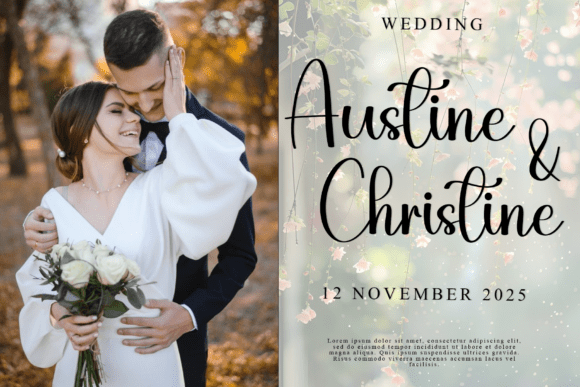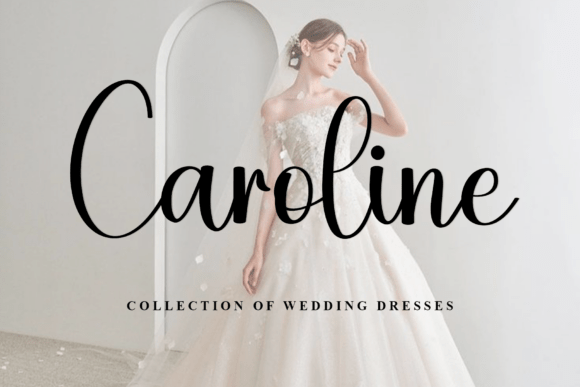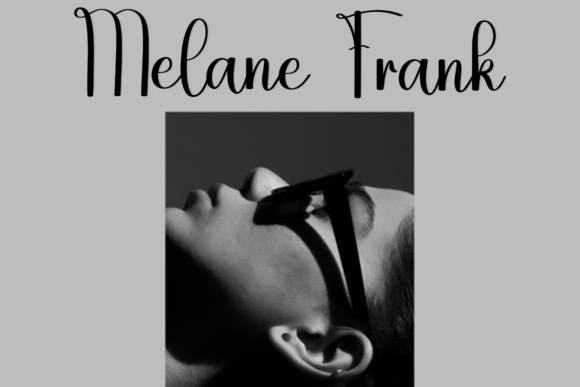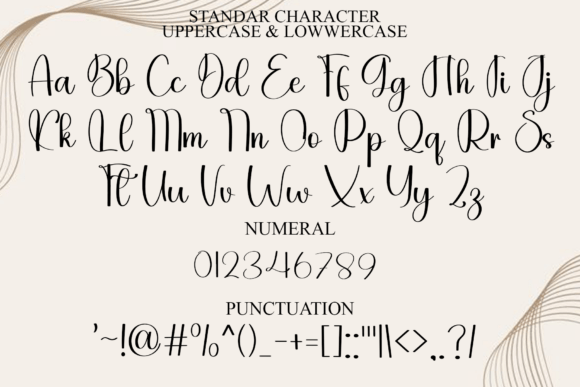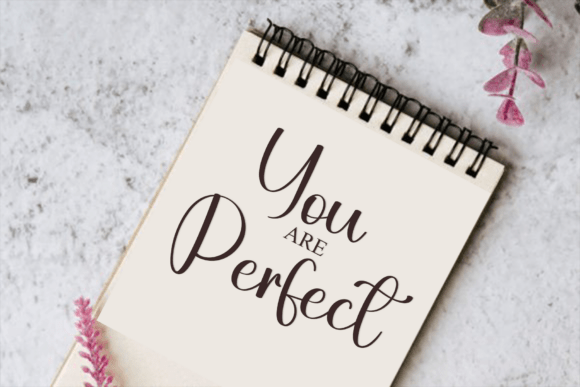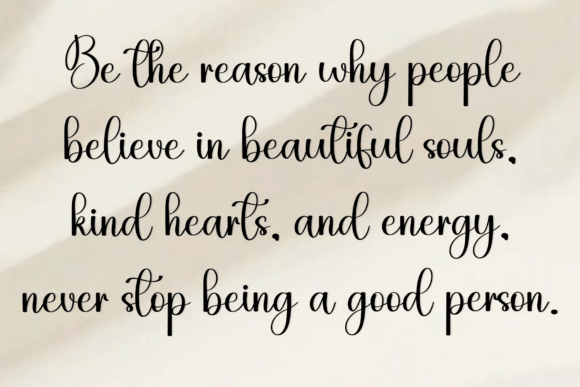
Unleashing the Magic of Artistic Script Font
As a creative, have you ever stumbled upon that perfect font that brings your design to life? Perhaps it was the subtle flair of a handwritten script or the elegance of a classic serif. For me, it’s always been about capturing the essence of a moment, and that’s exactly what the Artistic Script Font does. With its soft, unique touch, it adds a special character to any design, making it truly memorable.
The Artistic Script Font is more than just a pretty face – it’s a versatile tool designed to enhance your designs and captivate your audience. Whether you’re working on a graphic novel, a wedding invitation, or a brand identity, this font is sure to bring your creative vision to life. Its compatibility with various applications, including Windows and open-source platforms, makes it a valuable addition to any designer’s toolkit.
Key Features of Artistic Script Font
- Unique Characteristics: Elegant, cursive script with swashes and flourishes, ideal for creative and artistic designs
Artistic Script Font Review
Overall, I’d say the Artistic Script Font is a beautiful addition to any design project. It’s perfect for adding a touch of elegance and sophistication to your work. ✨ The font is highly customizable, with a wide range of styles and sizes to choose from. It’s also very versatile, and can be used in a variety of contexts, from invitations and posters to business cards and websites.
- ✨ Beautiful, elegant design
- ✨ Highly customizable
- ✨ Versatile and can be used in a variety of contexts
- ✨ Wide range of styles and sizes to choose from
However, I do have a few reservations about the font. ⚠️ Firstly, it can be a bit difficult to read in smaller sizes, especially when used for large blocks of text. This is something to keep in mind when using the font for body text. Additionally, the font can look a bit too ornate in certain situations, which may not be suitable for all design projects.
- ⚠️ Difficult to read in smaller sizes
- ⚠️ May look too ornate in certain situations
Overall, I’d say the Artistic Script Font is a great choice for designers who want to add a touch of elegance and sophistication to their work. With its high level of customization and versatility, it’s a great font to have in your toolkit. However, be sure to use it wisely, and take into account its limitations when choosing the right size and style for your project.
Use Artistic Script Font for:
- Party and event invitations
- Personalized gifts and cards
Remember to experiment with different font sizes, colors, and styles to get the most out of Artistic Script Font.
Alternatives to Artistic Script Font
Playfair Display is a high-end script font that features elegant, luxurious flair. It’s ideal for use in high-end branding, advertising, and editorial design where a touch of sophistication is required. Compared to Artistic Script Font, Playfair Display has a more refined and classical feel, making it suitable for a wider range of applications.
Lobster is a fun, casual script font that’s perfect for use in informal design projects, such as social media, blog posts, and posters. While it lacks the elegance of Artistic Script Font, Lobster’s playful nature makes it ideal for conveying a relaxed, approachable tone. Its simplicity also makes it easier to read at smaller font sizes.
Great Vibes is a modern script font that exudes a sense of friendliness and approachability. It’s suitable for use in branding, advertising, and web design projects where a friendly, conversational tone is required. Compared to Artistic Script Font, Great Vibes has a more open, relaxed feel, making it ideal for use in digital design projects.